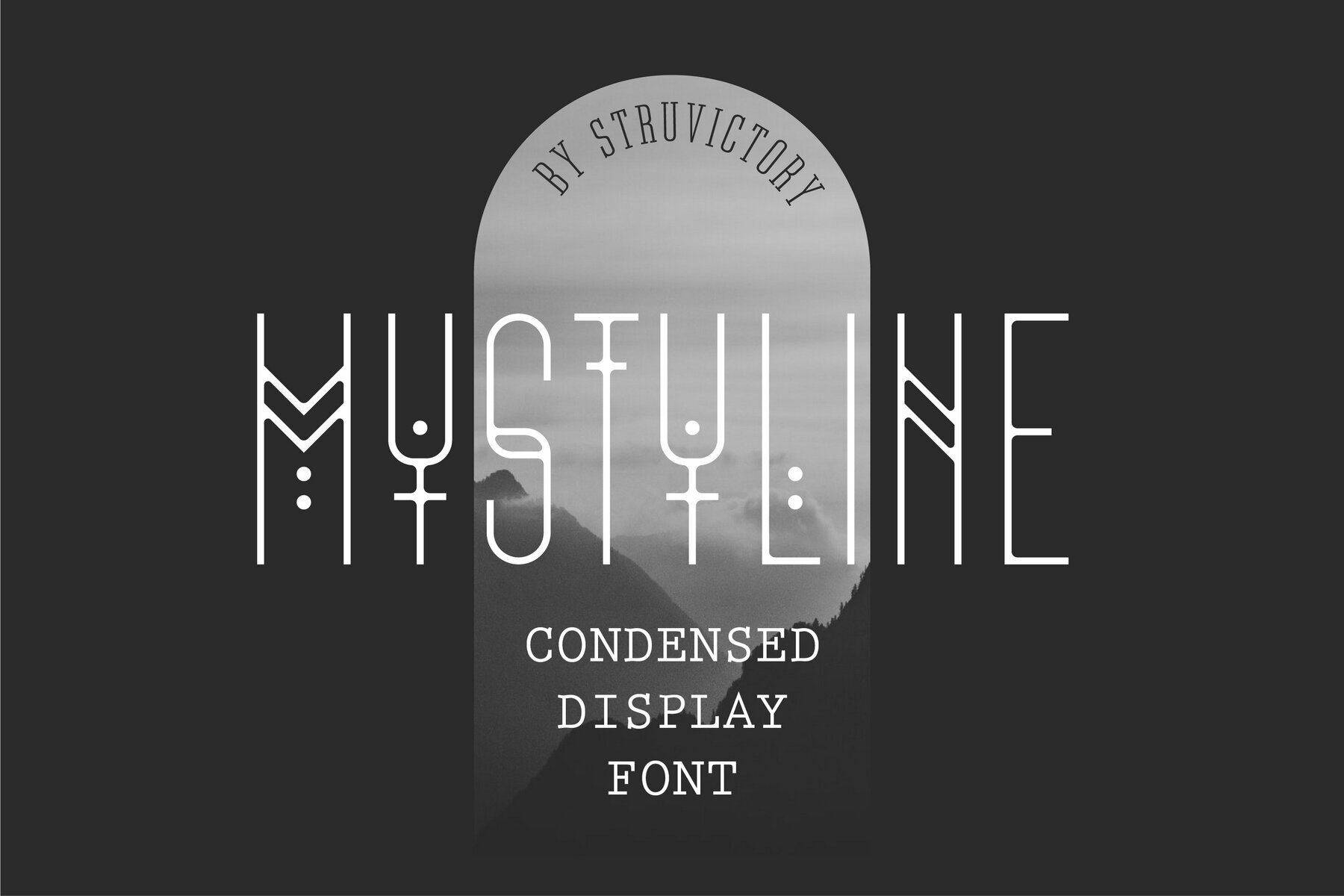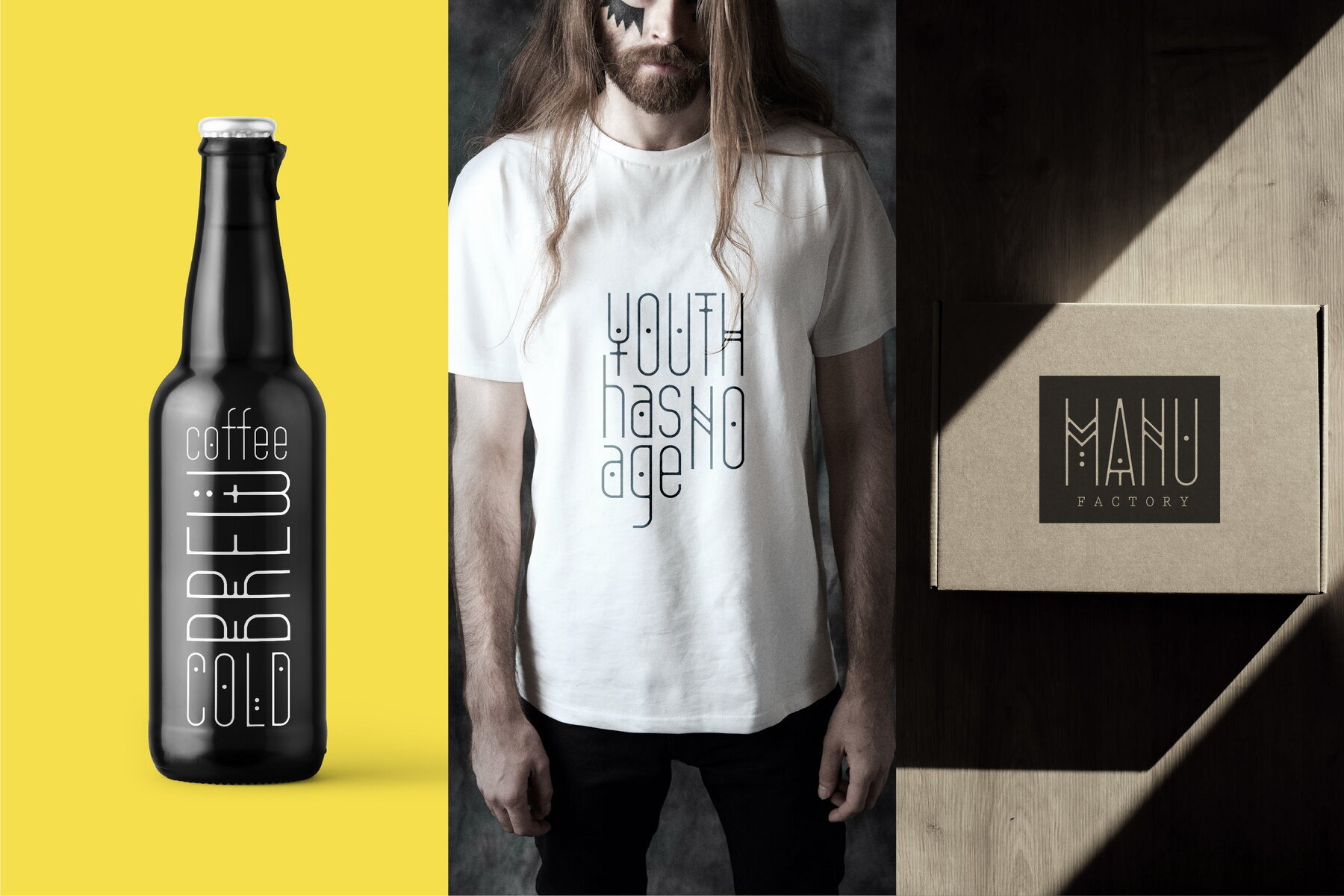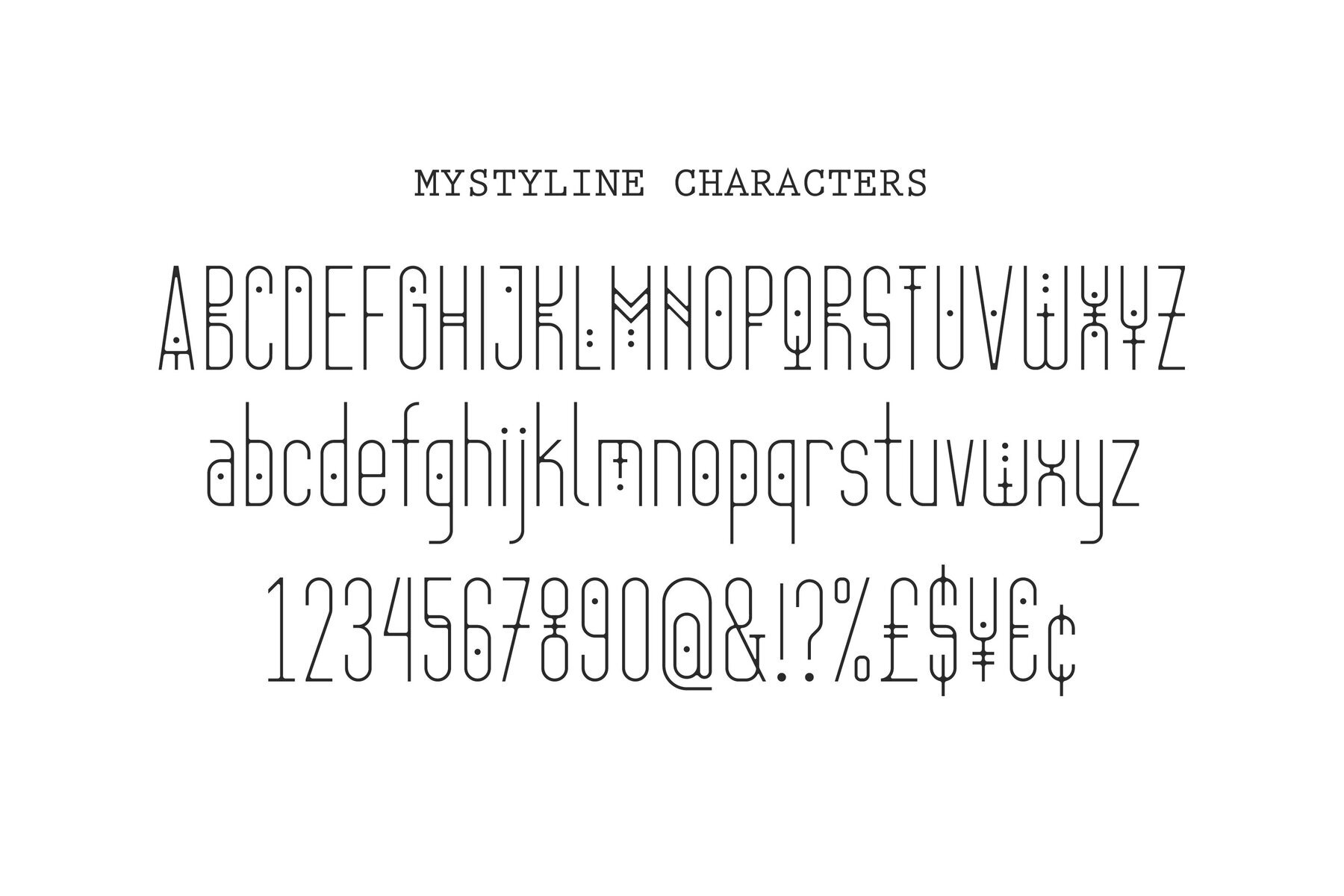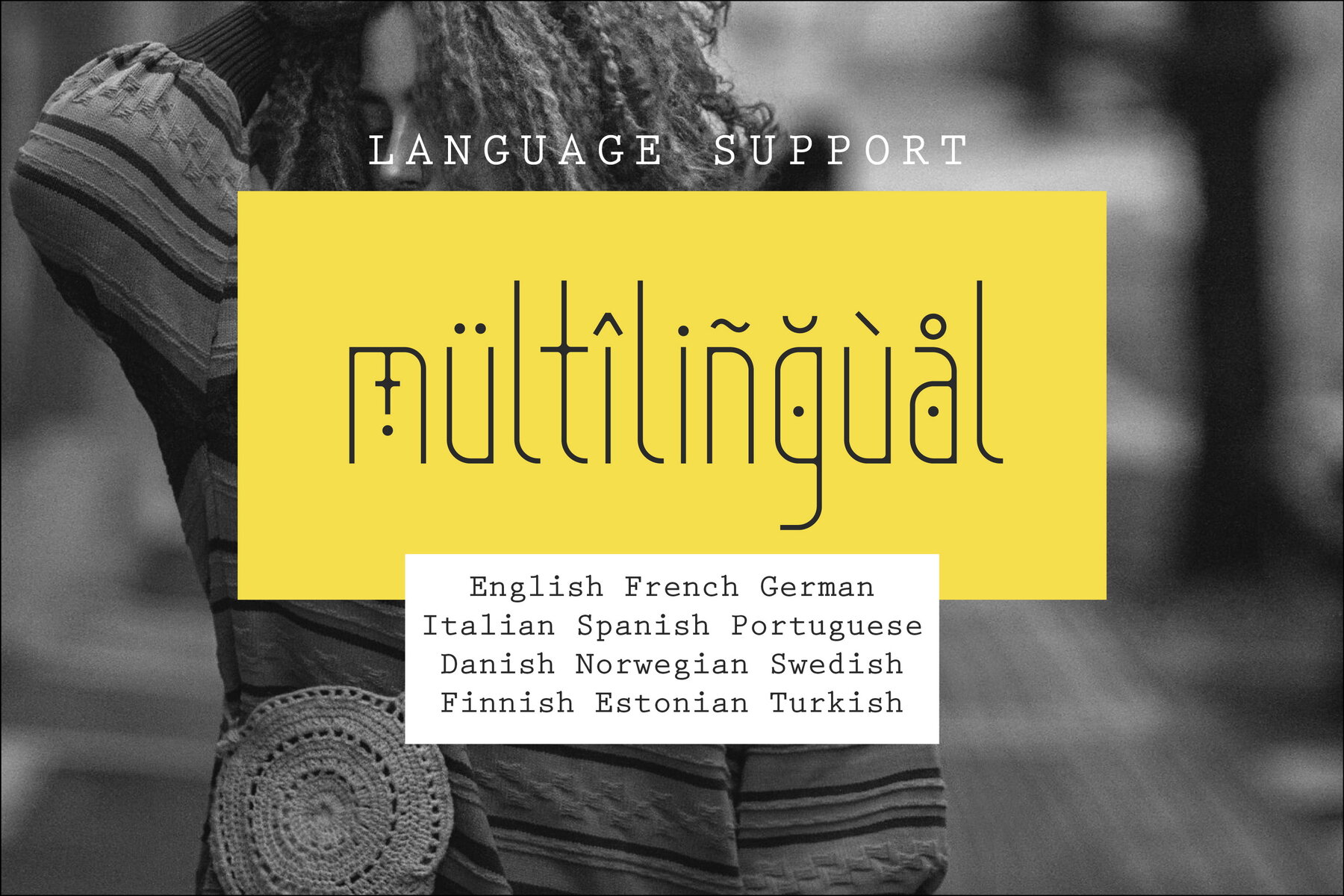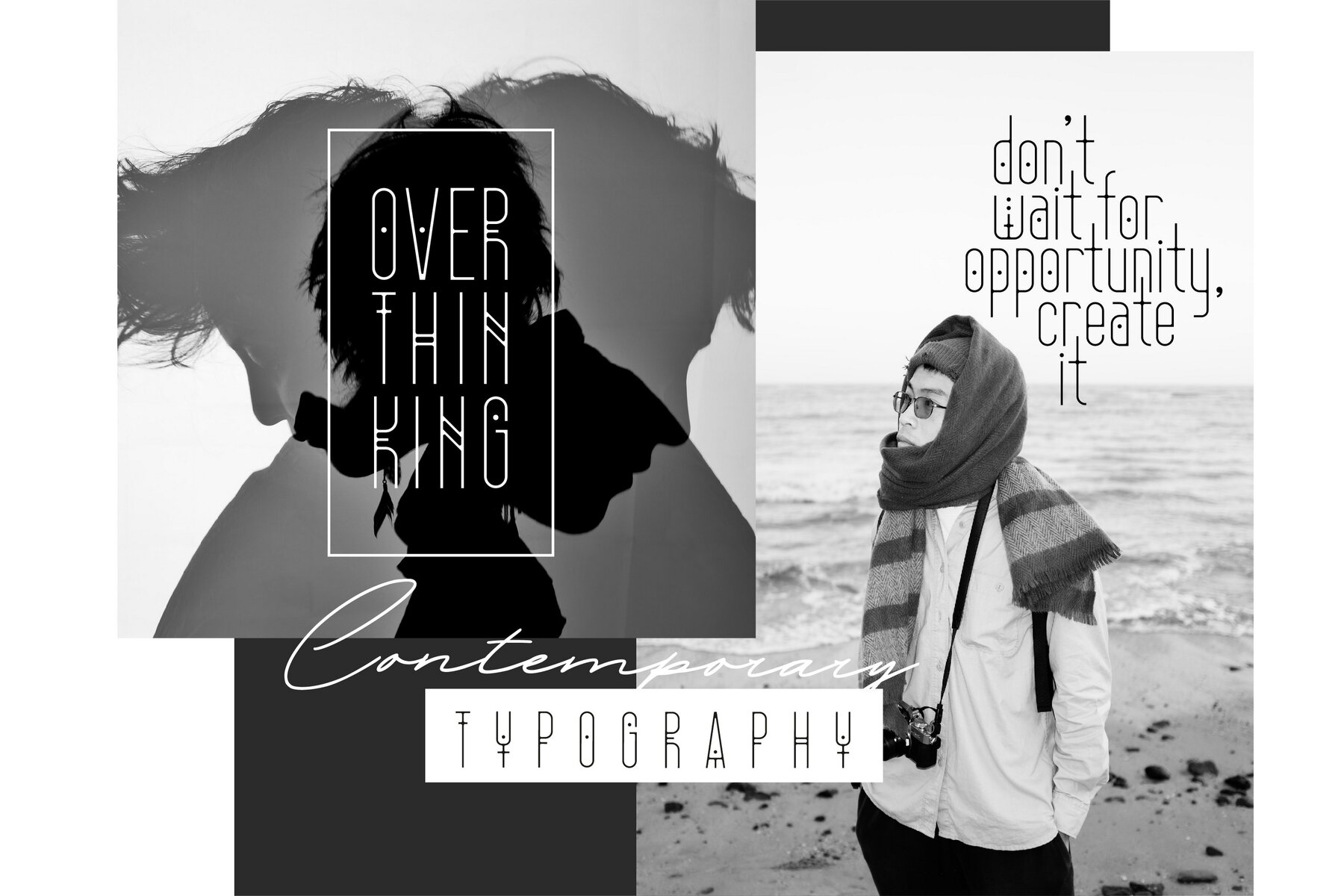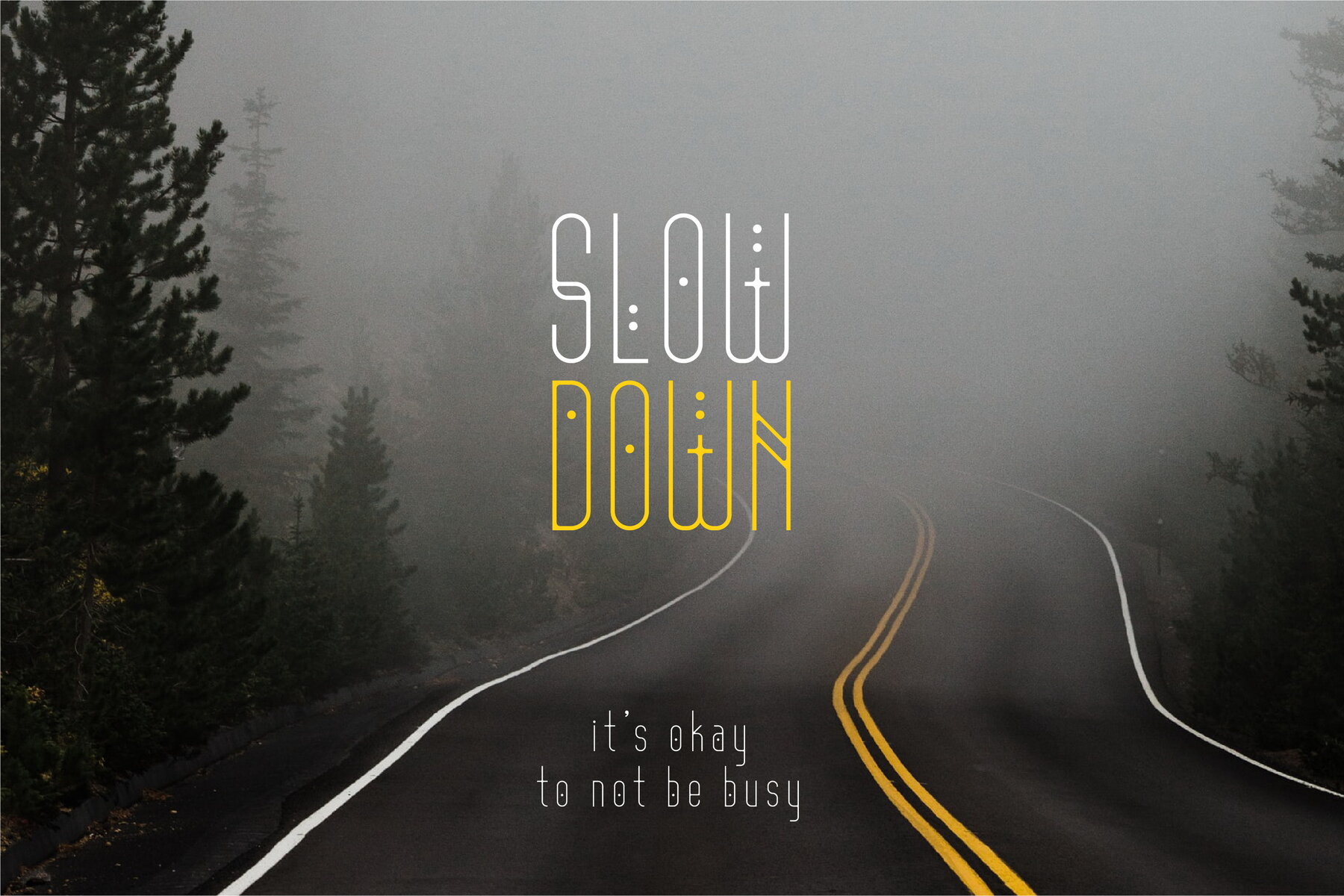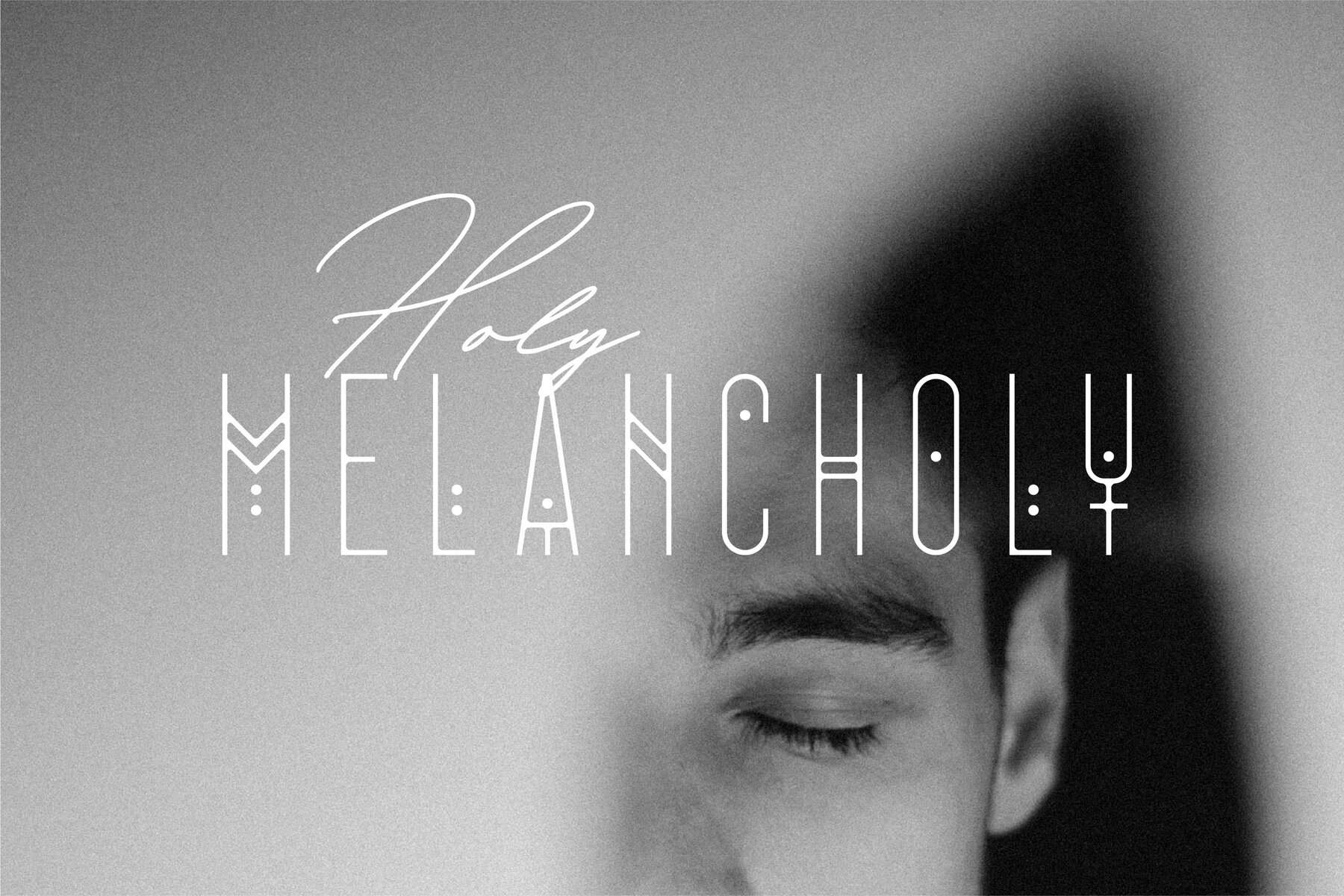
Mystyline Font
Mystyline Decorative
Mystyline is a modern, thin line condensed font, drawing inspiration from hipster aesthetics. Each letter is uniquely decorated with lines and dots, contributing to its distinct style. This font is ideal for contemporary typographic projects such as event design, movie posters, advertising materials, music production, and photo overlays. Its hipster design essence adds a trendy flair to any creative endeavor. The font offers extensive language support, accommodating languages including English, French, German, Italian, Spanish, Portuguese, Danish, Norwegian, Swedish, Finnish, Estonian, and Turkish.Mystyline: Modern Thin Line Condensed Font